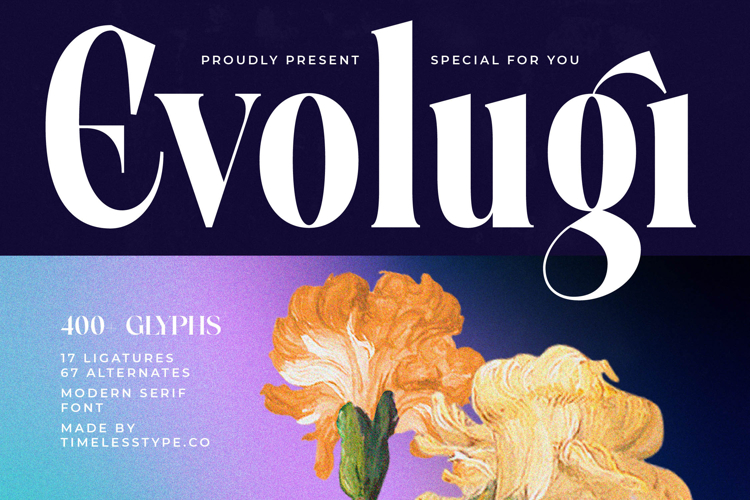
Evolugi - Modern Serif Font
Unveil a new standard of typographic elegance with Evolugi - Modern Serif Font, a truly captivating typeface designed to make an indelible mark. This exquisite font blends classic serif aesthetics with a contemporary flair, featuring a striking high-contrast between its thick and thin strokes that exudes an air of sophistication and visual drama. Its graceful curves and refined terminals ensure that every word commands attention, perfect for projects demanding a touch of upscale artistry and distinctive style.
Unlock unparalleled creative freedom with Evolugi - Modern Serif Font, which offers an extensive character set including over 400 glyphs. Designers will appreciate the rich possibilities provided by 17 unique ligatures and 67 sophisticated alternates, allowing for endless customization and bespoke textual compositions. This level of design flexibility ensures that your branding and editorial layouts can achieve a truly unique and memorable presence, standing out in any competitive landscape.
Navigate global design challenges effortlessly with Evolugi - Modern Serif Font's robust functionality. With its extensive multilingual support, Evolugi - Modern Serif Font adapts seamlessly across global markets, making it incredibly versatile for international projects. This comprehensive language compatibility ensures your message resonates authentically with diverse audiences, maintaining its elegant and professional integrity worldwide.